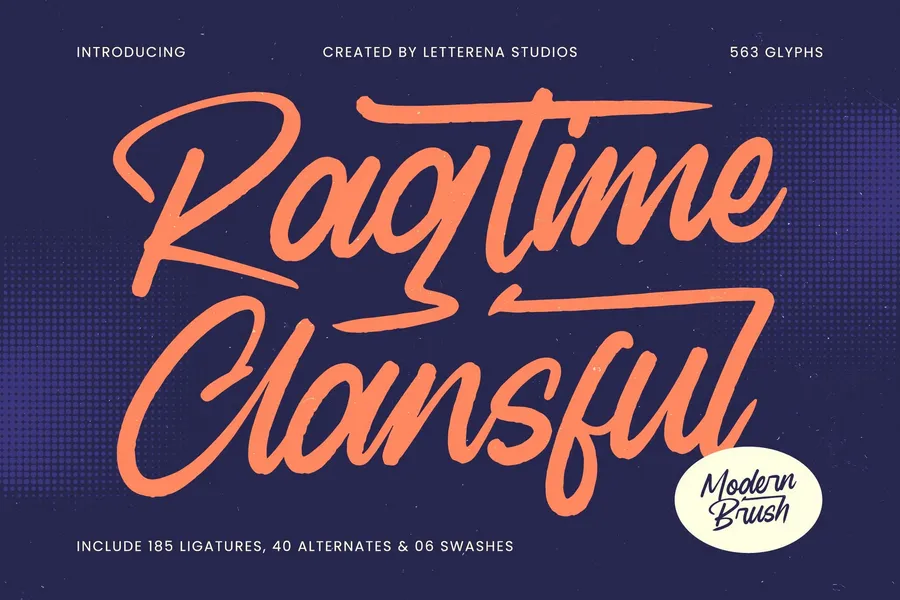
Ragtime Clansful
Hi ladies & gentlemen, this is one of our fonts suitable to complement your digital and printed creative products. This font is perfect for posters, social media posts, branding, personal projects, etc.